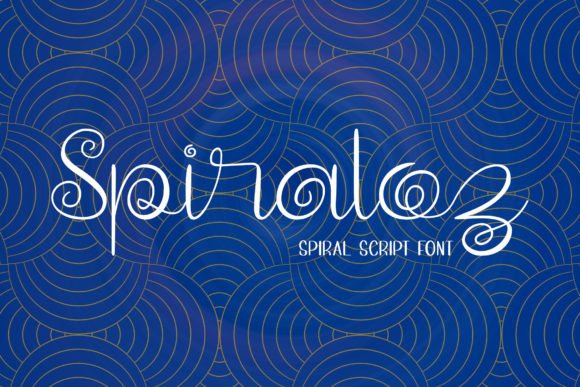
In a world where design reigns supreme, the Spiraloz Font emerges as a tour de force, a masterpiece of creativity that will ignite your projects with an explosion of effervescence and charm. Prepare to be mesmerized as this enchanting script font weaves its magic, captivating audiences with its playful dance of swirls and curls. From the moment you lay your eyes upon it, Spiraloz Font casts a spell, transporting you to a realm where imagination runs wild and creativity knows no bounds.
Journey with us as we explore the captivating world of Spiraloz Font, a script font that has the rare ability to transform even the mundane into the extraordinary. Let its graceful curves and energetic strokes ignite your designs, whether you seek to create eye-catching logos, delightful branding, whimsical invitations, or social media posts that radiate personality. With Spiraloz Font as your creative companion, every project becomes a canvas for boundless imagination.
Picture this: a logo that bursts forth with vibrant energy, its every letter dancing in perfect harmony, capturing attention from across the virtual expanse. Or envision social media posts that ignite conversations, their captivating visuals drawing followers into a world of pure delight. The possibilities are limitless, as Spiraloz Font empowers you to weave your creative dreams into tangible realities.
Unlike other fonts that blend into the background, Spiraloz Font demands attention, commanding the spotlight with its captivating allure. Its skillful craftsmanship ensures that every stroke, every curve, every twist and turn is a testament to the dedication and passion poured into its creation. The result is a font that stands tall amidst the ordinary, an artistic masterpiece that elevates designs to new heights of sophistication.
Immerse yourself in the whimsical wonderland of Spiraloz Font, where your imagination takes center stage. Its playful personality adds a touch of magic to every project, transforming the humdrum into the extraordinary. Unleash your inner child and let the creative juices flow as you craft designs that spark joy, ignite smiles, and leave an unforgettable impression.